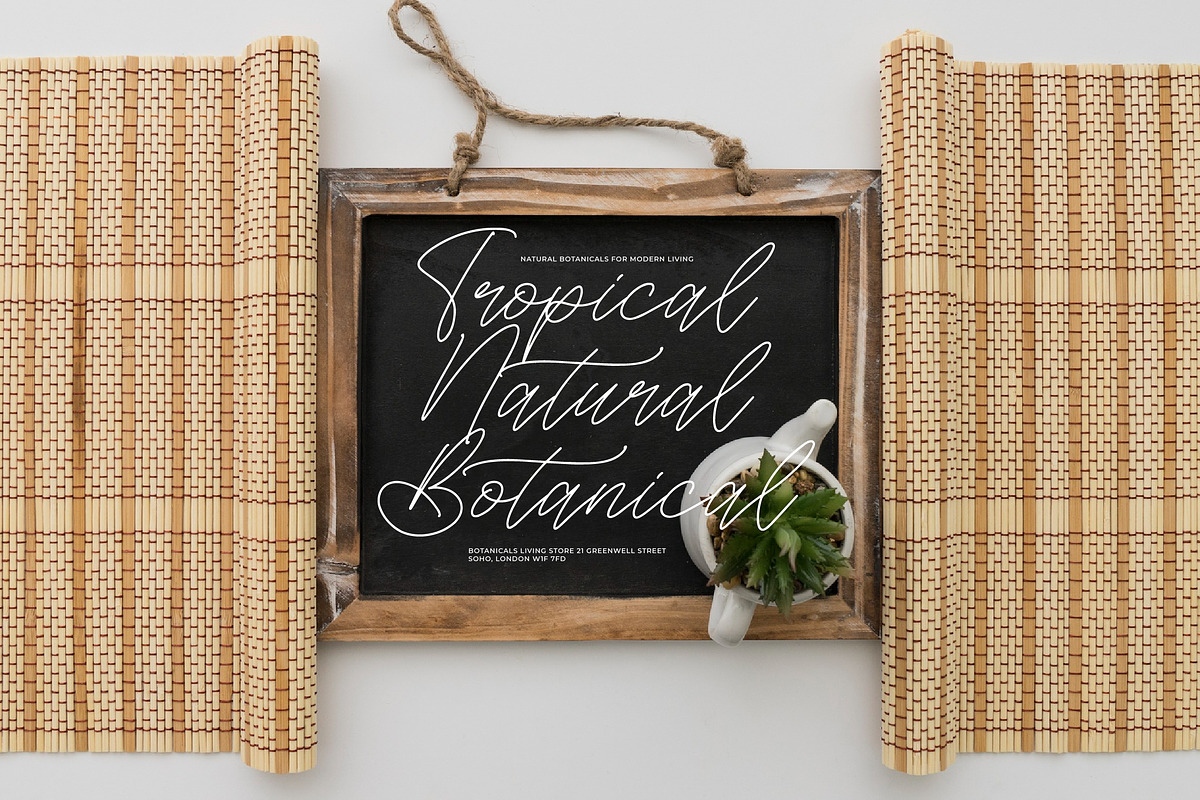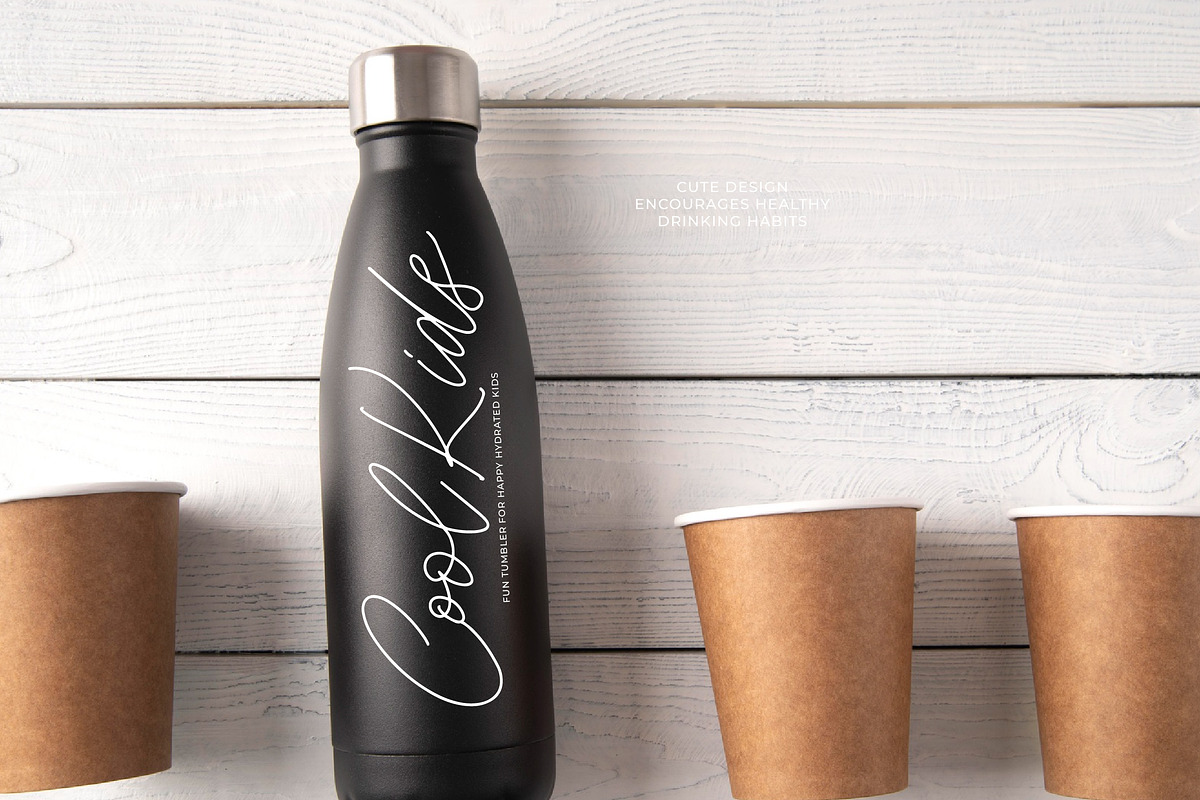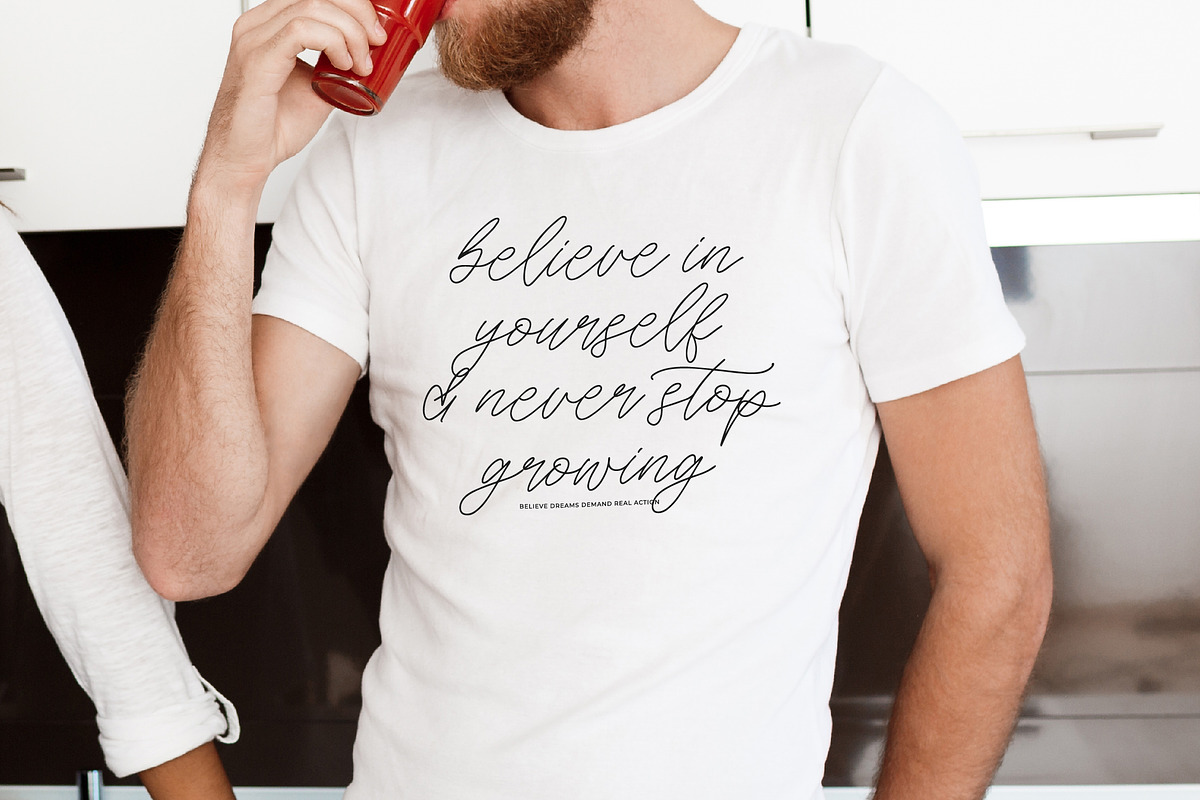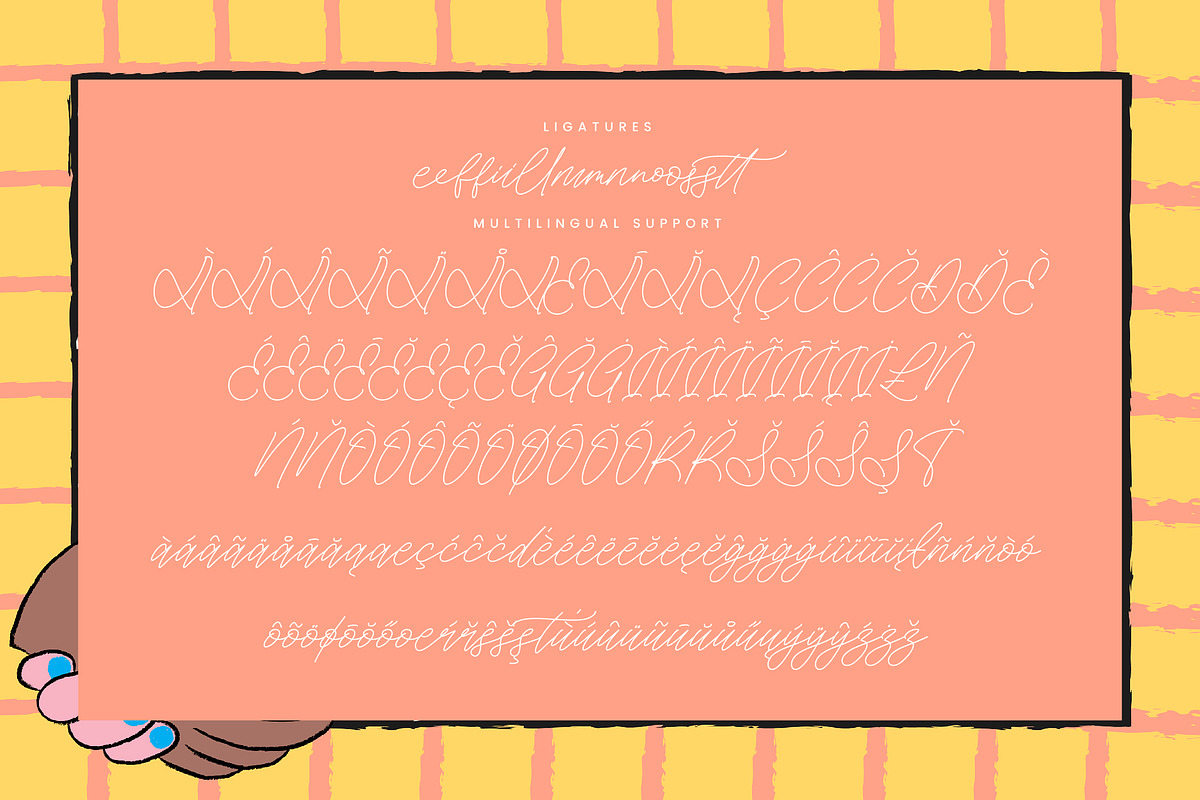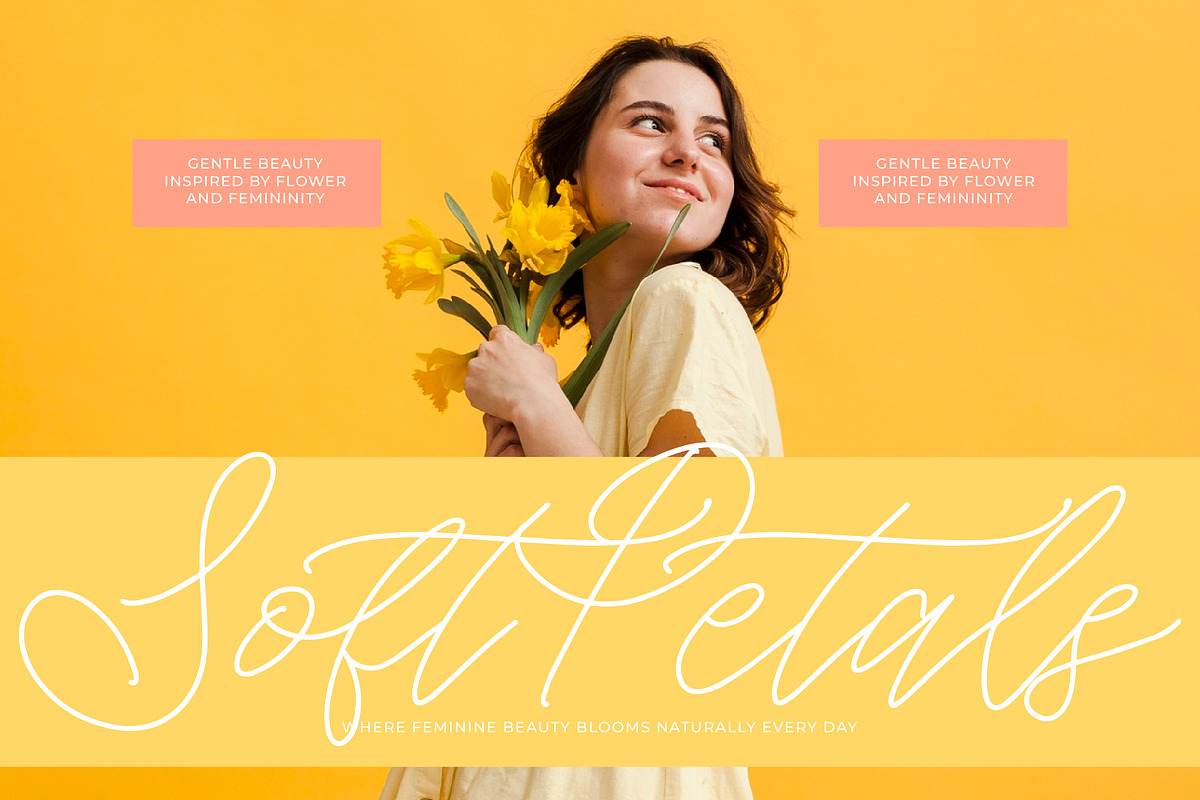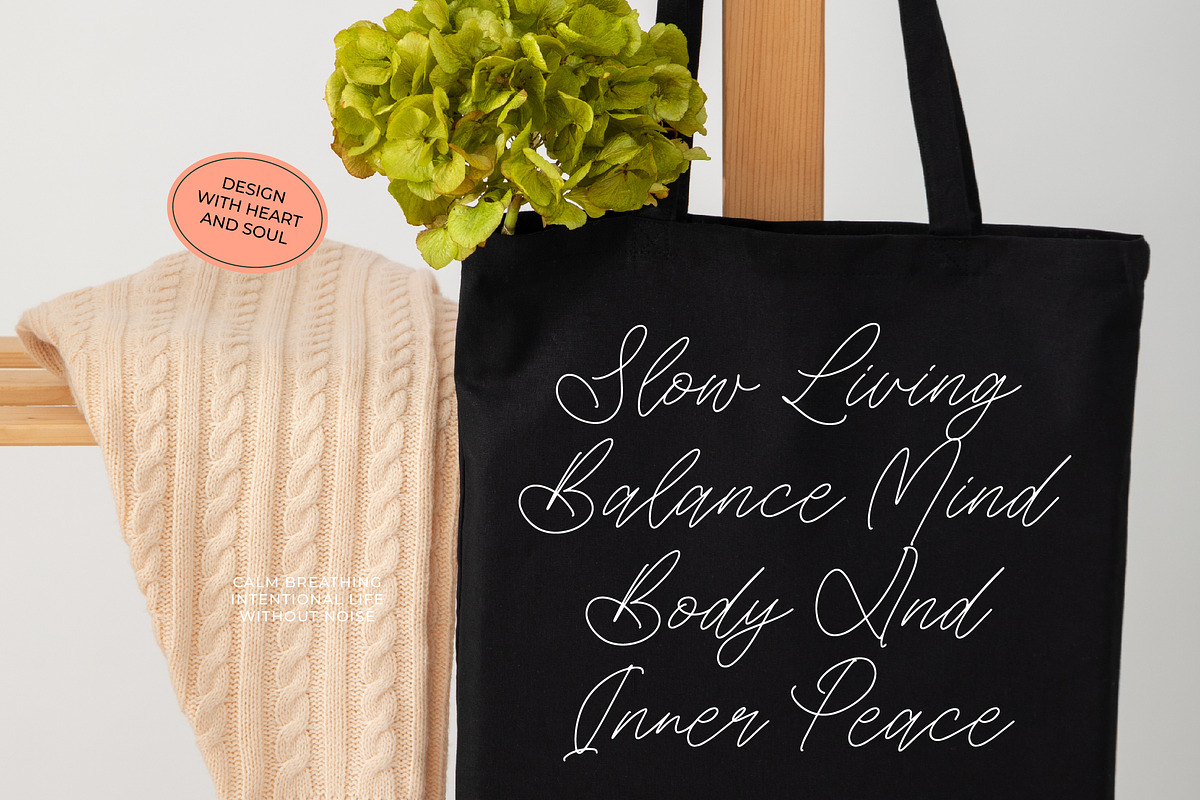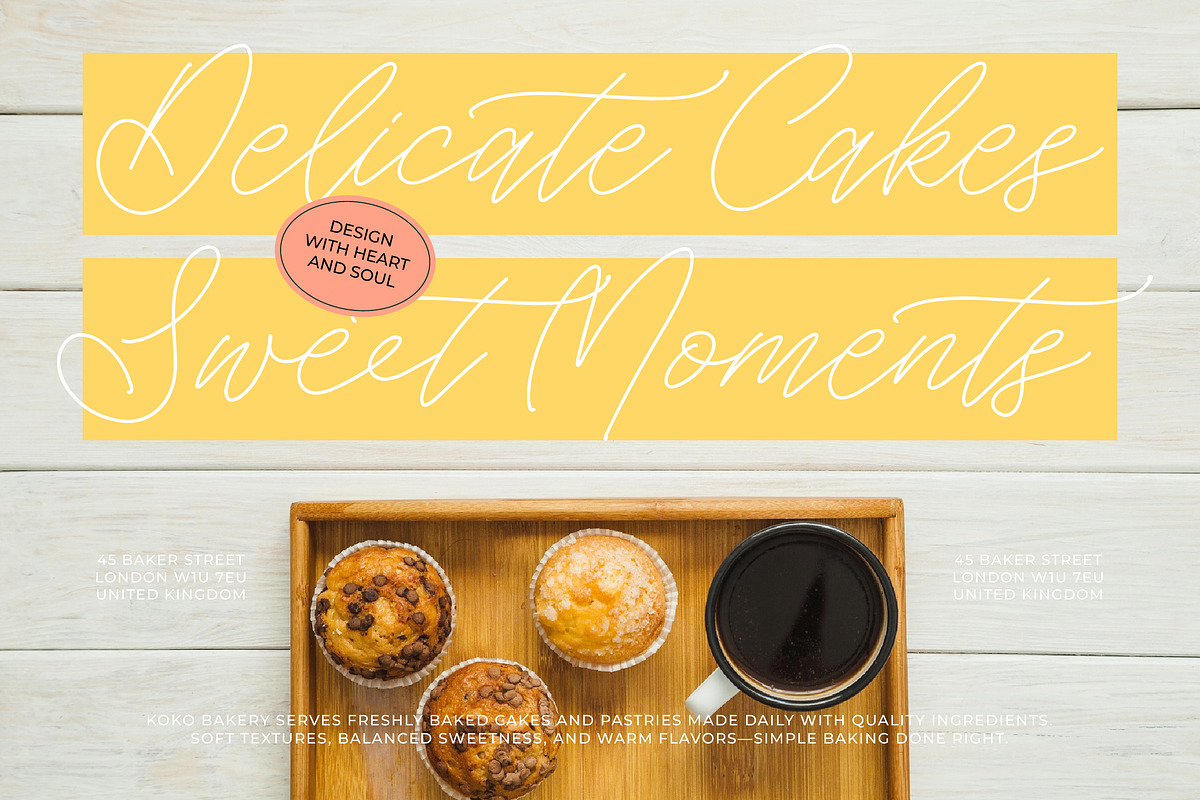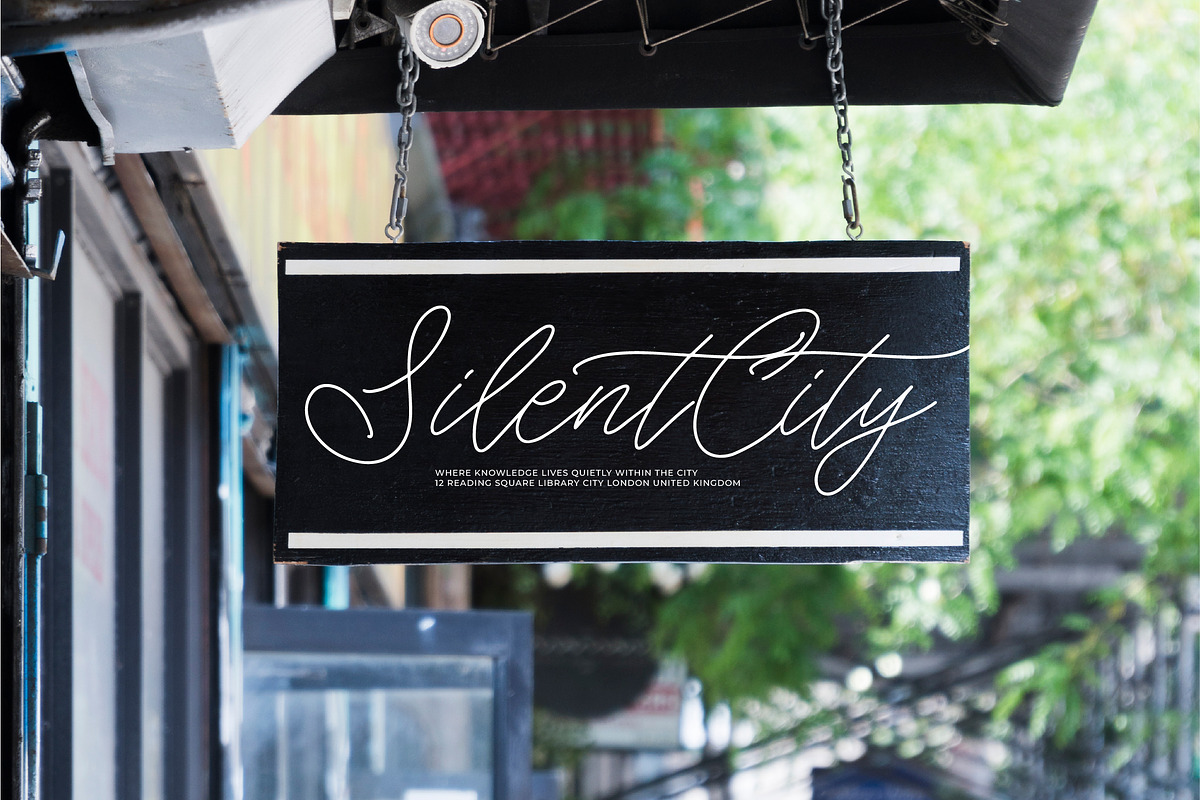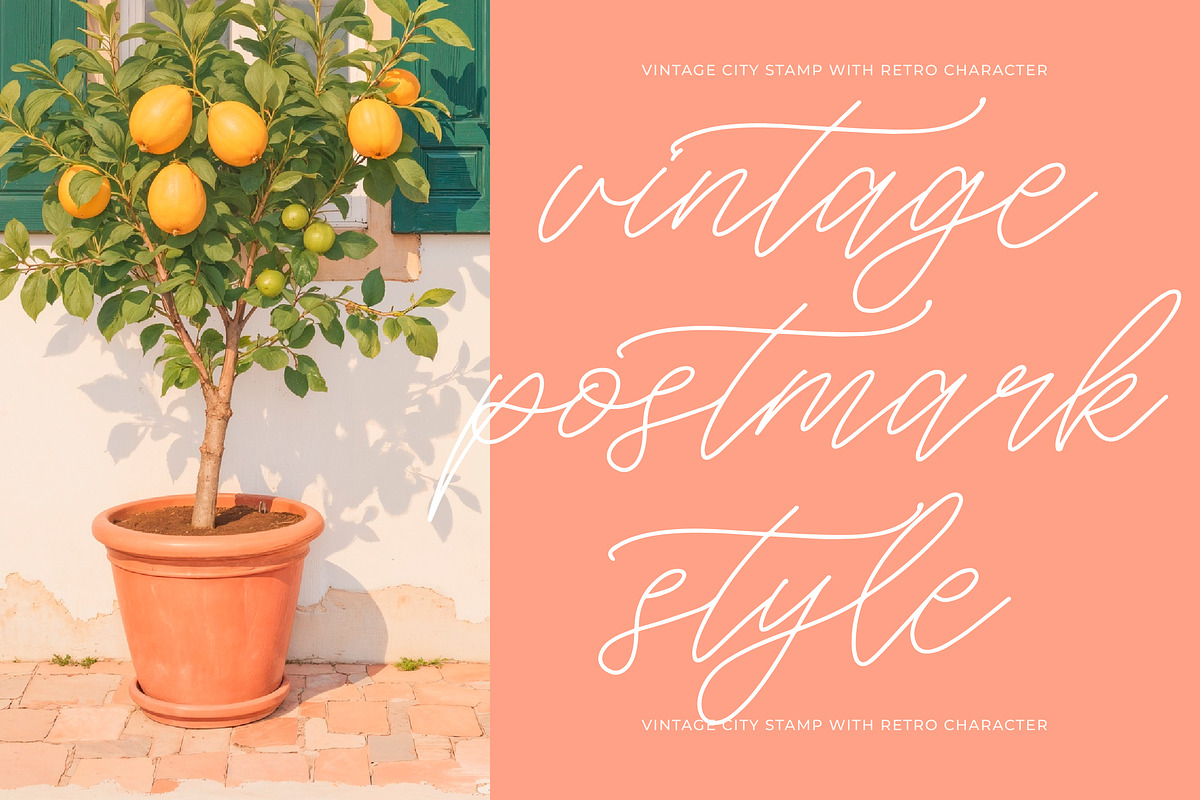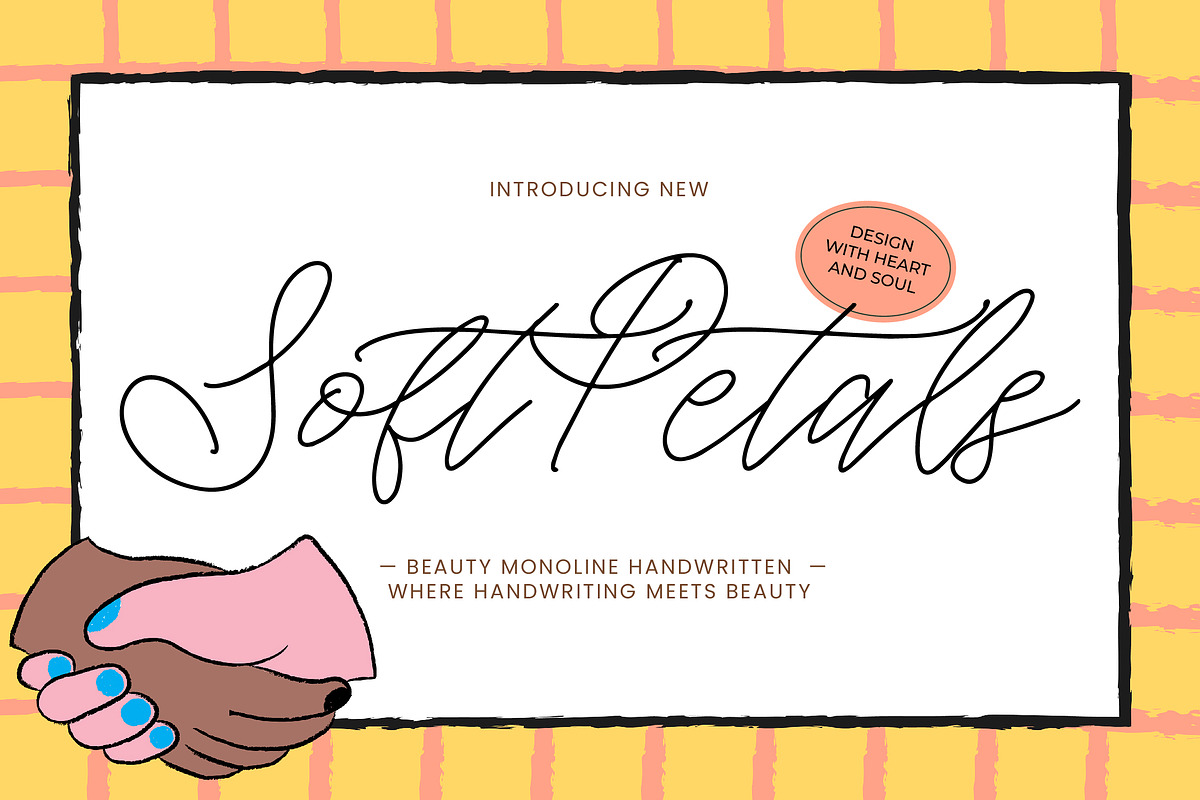
Soft Petals Beauty Monoline Handwr
Soft Petals – Beauty Monoline Handwritten
Soft Petals is a beauty monoline handwritten font from Integritype Studio, designed with soft strokes and elegant curves. Perfect for feminine and modern designs, this font brings a gentle, clean, and stylish handwritten feel to elevate any creative project.
Perfect for projects such as: logos, beauty branding, cosmetic packaging, wedding invitations, homeware designs, quotes, posters, shopping bags, t-shirts, book covers, business cards, greeting cards, labels, photography, watermarks, special events, and all projects that require a soft and elegant aesthetic.